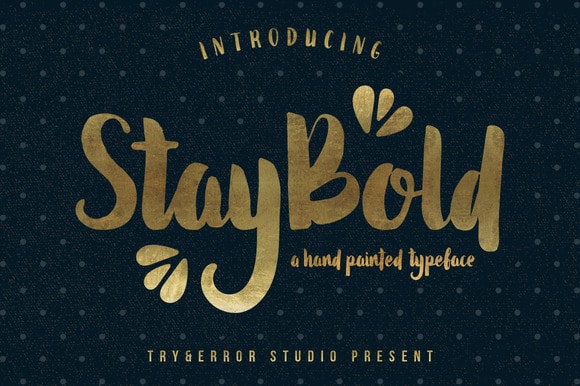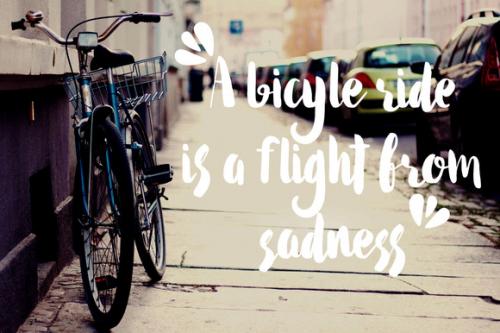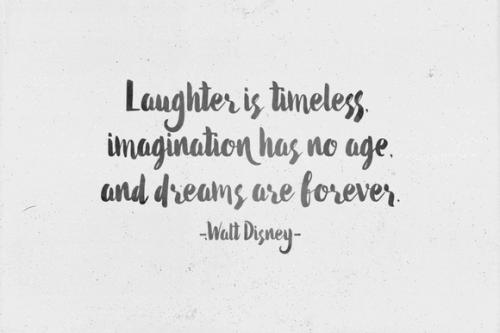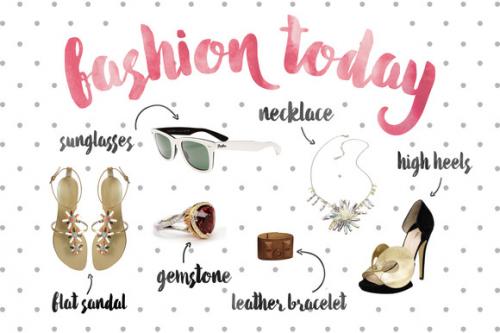
Hello! I’m very happy to present script font Stay Bold Typeface! A trendy, hand-brushed font, looks gorgeous on logos, websites, invitations, greeting cards, magazines, business cards, packaging and more!